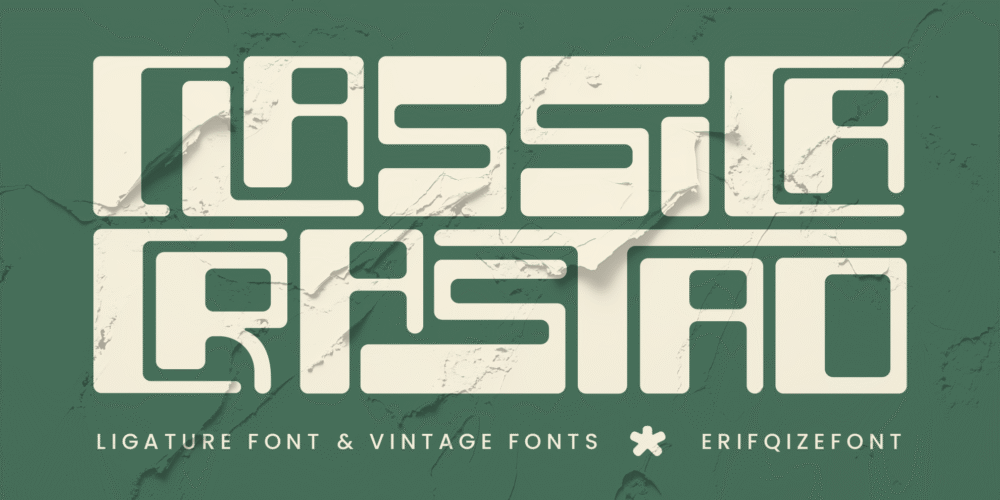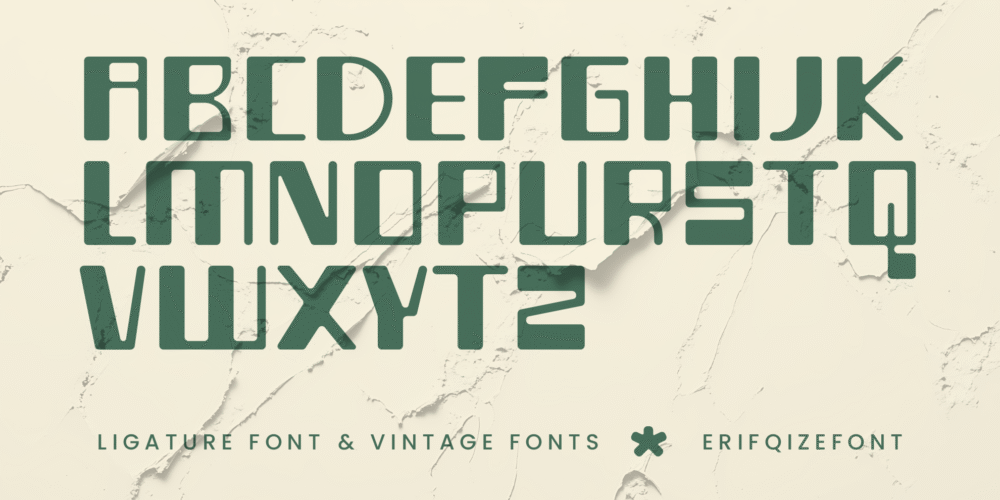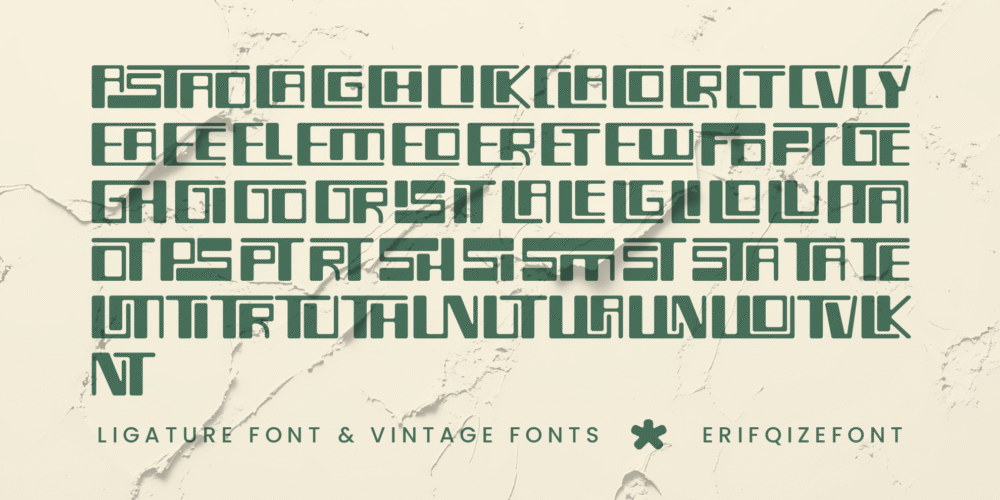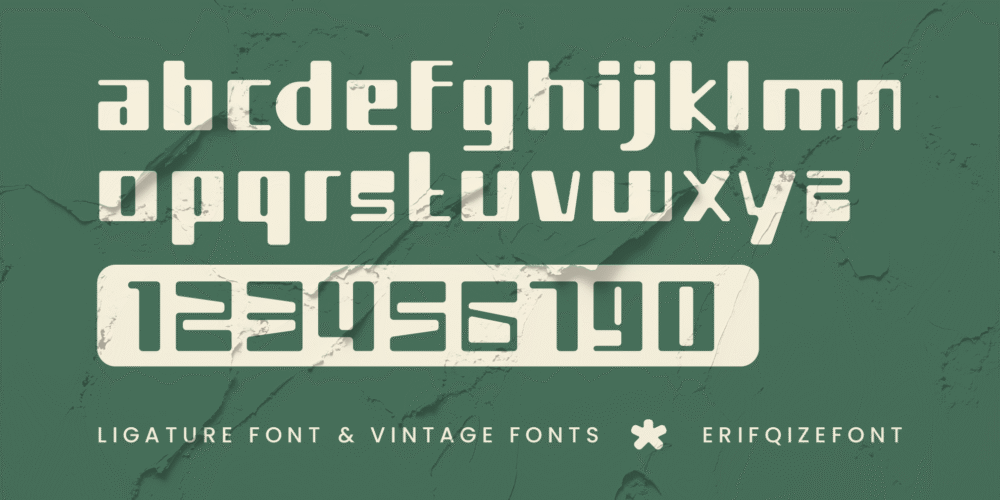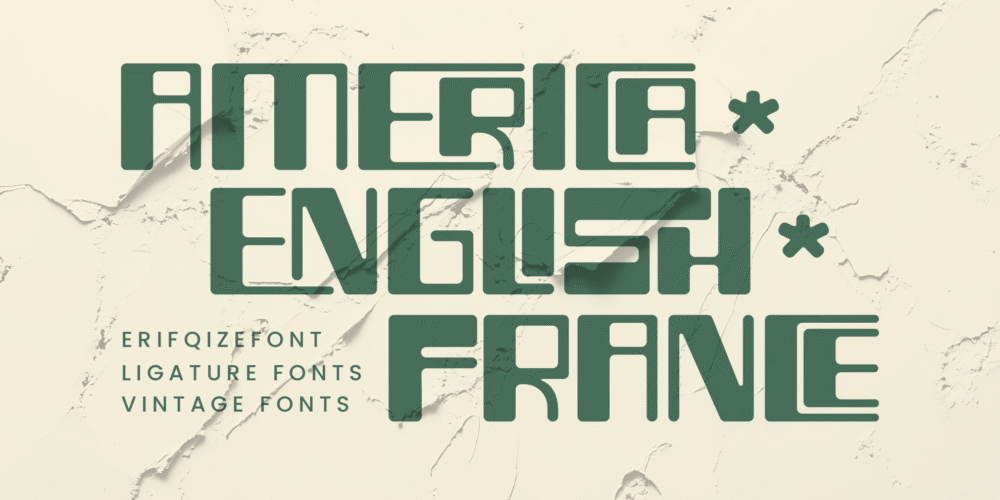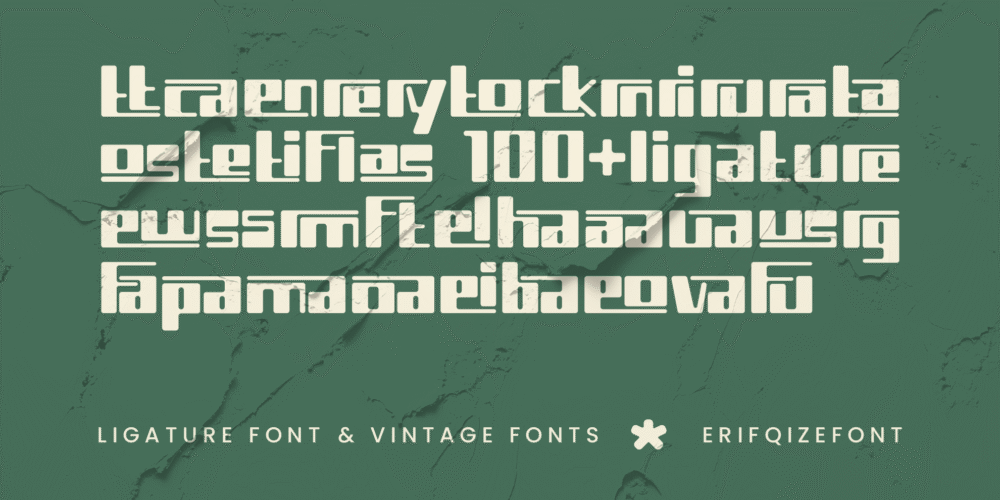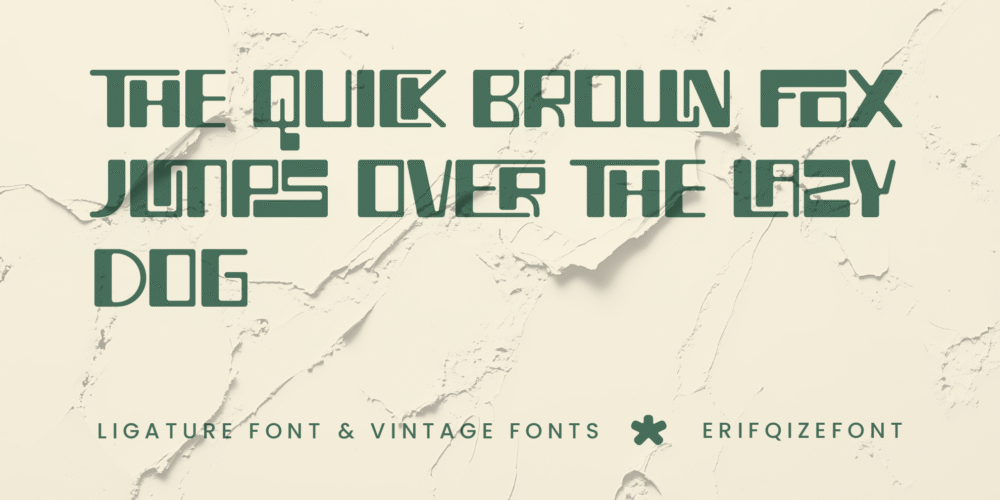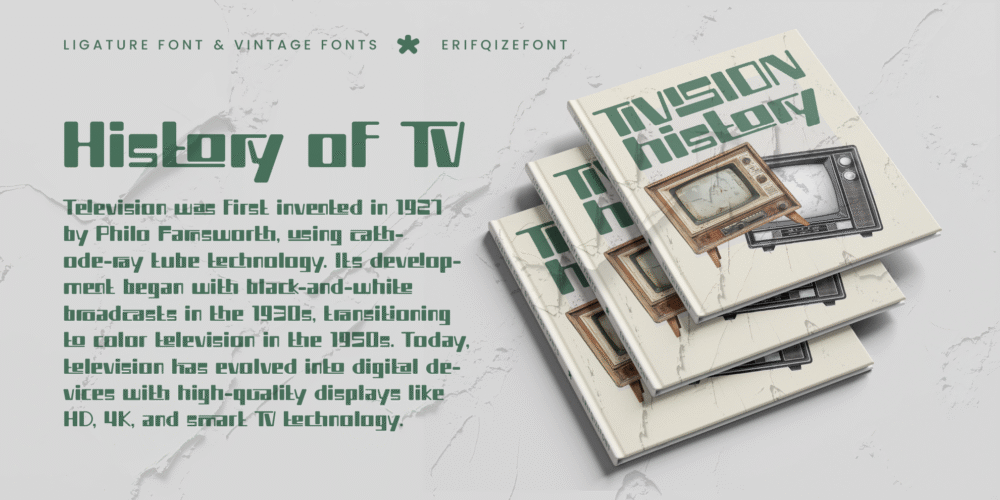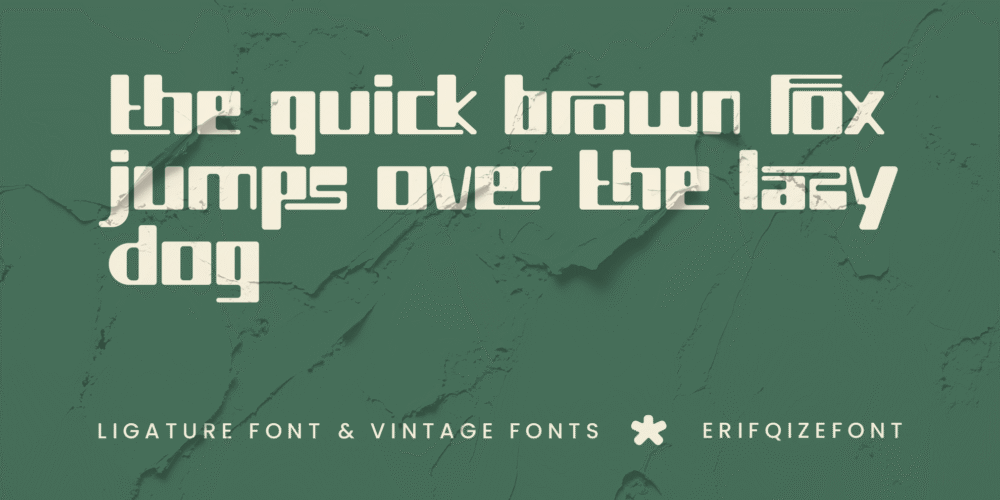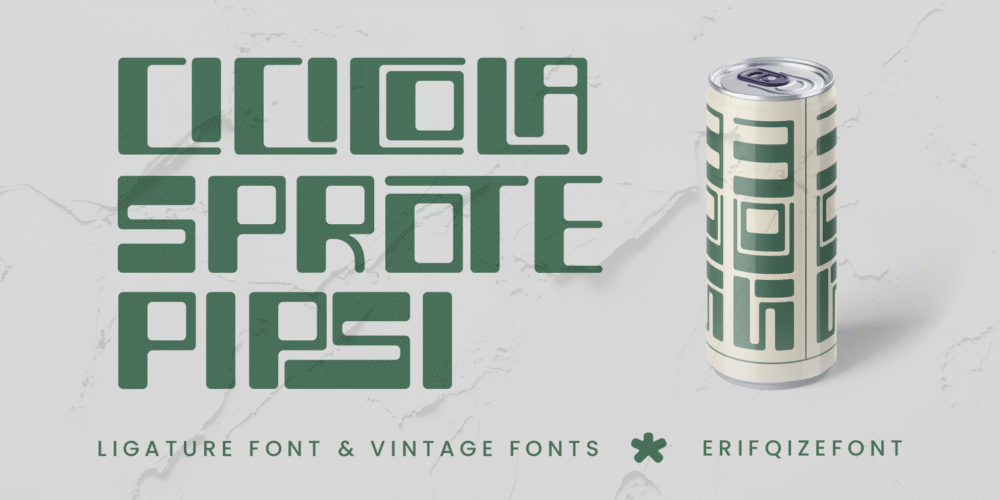
Classica Crastao – Vintage Bold Sans Serif
Classica Crastao is a bold and versatile sans serif font that blends classic vintage charm with modern usability. Its rounded corners and carefully crafted letterforms give it a distinctive, timeless personality that stands out in both retro and contemporary settings.
Featuring over 100 ligatures for both uppercase and lowercase characters, Classica Crastao allows you to create smooth, elegant, and visually engaging typography. Whether you’re working on branding, logos, headlines, or editorial design, this font delivers strong visual impact with refined character.
Designed with multilingual support, Classica Crastao is ready for global projects and creative exploration.
Bring a touch of retro sophistication to your next design with Classica Crastao.